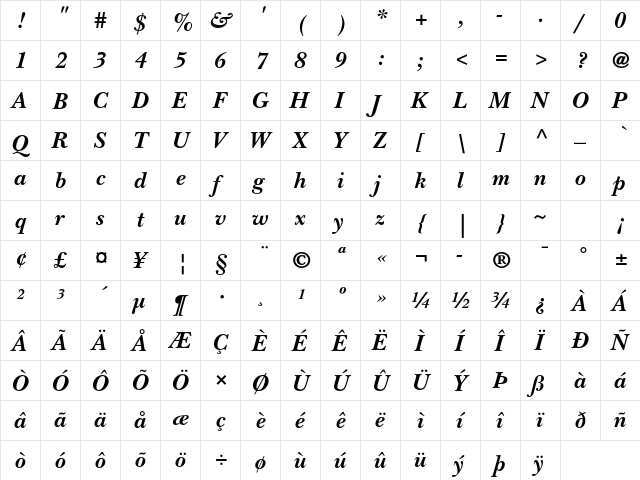
ITC New Baskerville Std Bold Italic Font Preview
| Designer | George W. Jones |
Design Context for ITC New Baskerville Std Typeface
ITC New Baskerville Std takes a measured approach to typography — its balanced proportions and neutral character make it a reliable workhorse for both digital and print work. Its italic angle brings a sense of urgency and motion to the letterforms. The heavy weight commands attention and anchors typographic hierarchies.
Pro Tip: Try ITC New Baskerville Std for annotation and caption copy alongside an upright companion — the contrast in angle creates a dynamic but ordered typographic system.